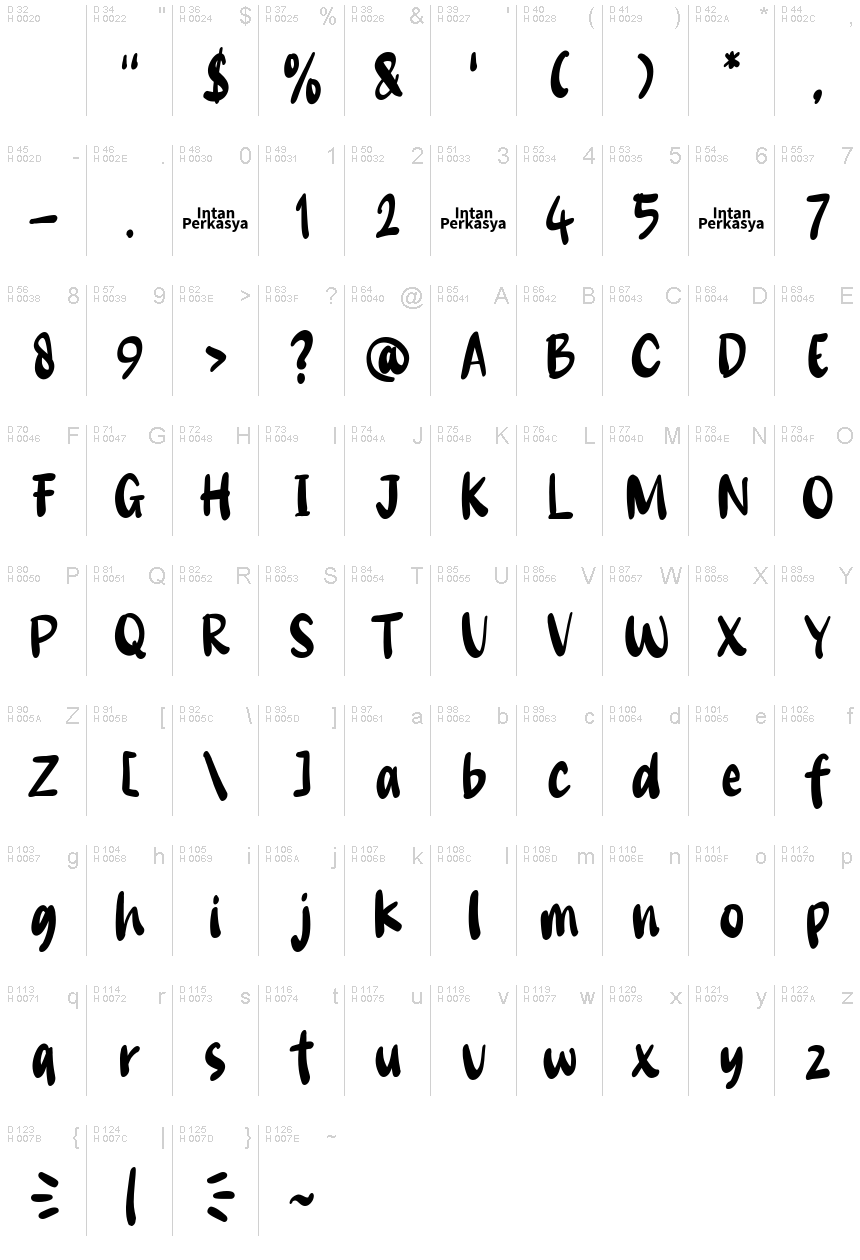
Blueberry Cream
Blueberry Cream font by Intan Perkasya captivates with its charming brush style, offering a delightful blend of playfulness and elegance. Its fluid strokes and organic curves create a sense of movement, mimicking the vibrant flow of hand-painted lettering. This free font is perfect for adding a personal touch to your designs, whether you're crafting logos, greeting cards, or social media graphics.
The expressive nature of Blueberry Cream makes it an excellent choice for projects that demand attention and creativity. Ideal for branding that seeks warmth or promotional materials with personality, this font transforms ordinary text into standout statements. With easy download options available, integrating Blueberry Cream into your design toolkit is seamless and rewarding—experience the joy of artistic freedom today.